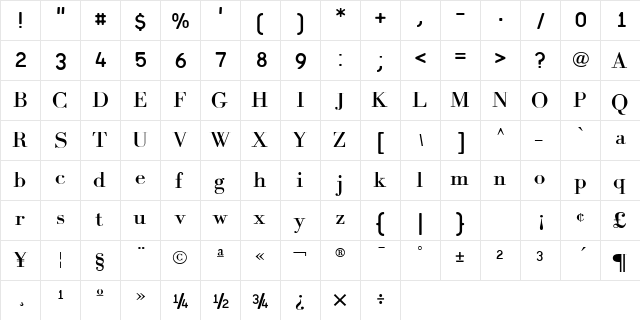
GalileoMF Medium
Design Context for GalileoMF Typeface
GalileoMF is a composed and adaptable typeface that performs quietly and consistently across a wide range of design contexts.